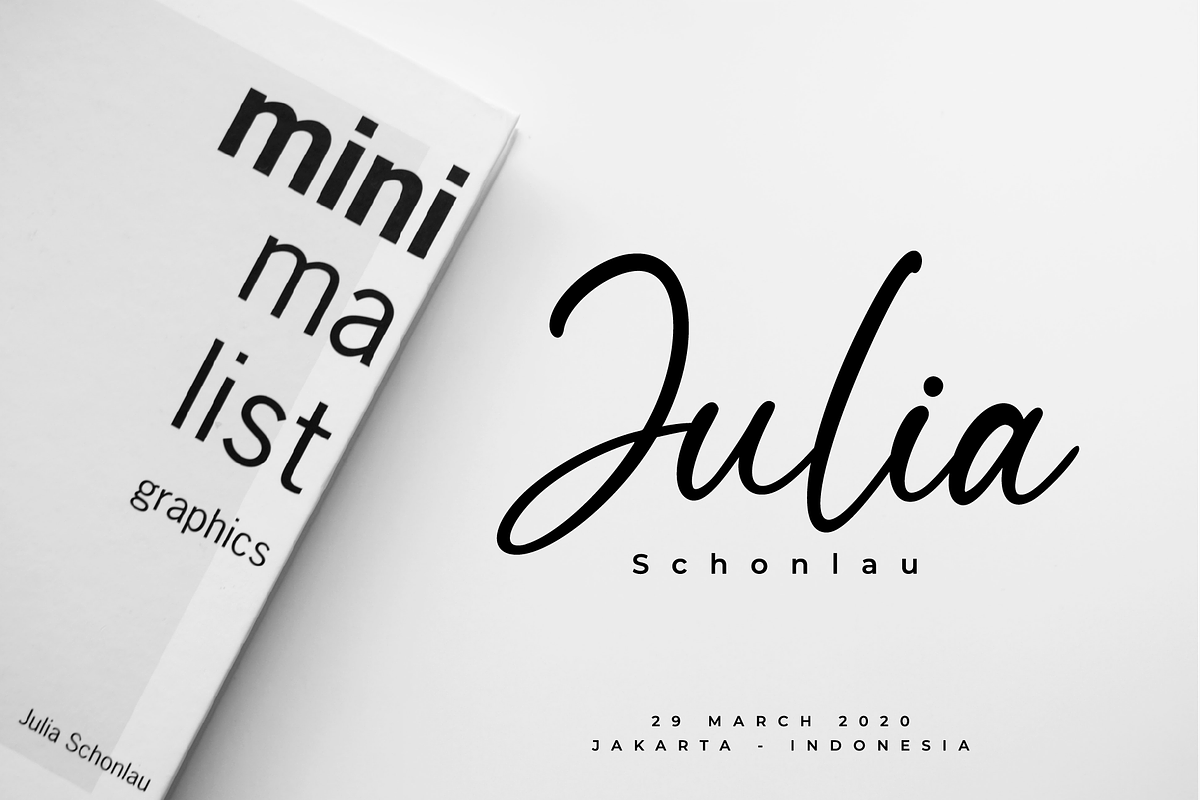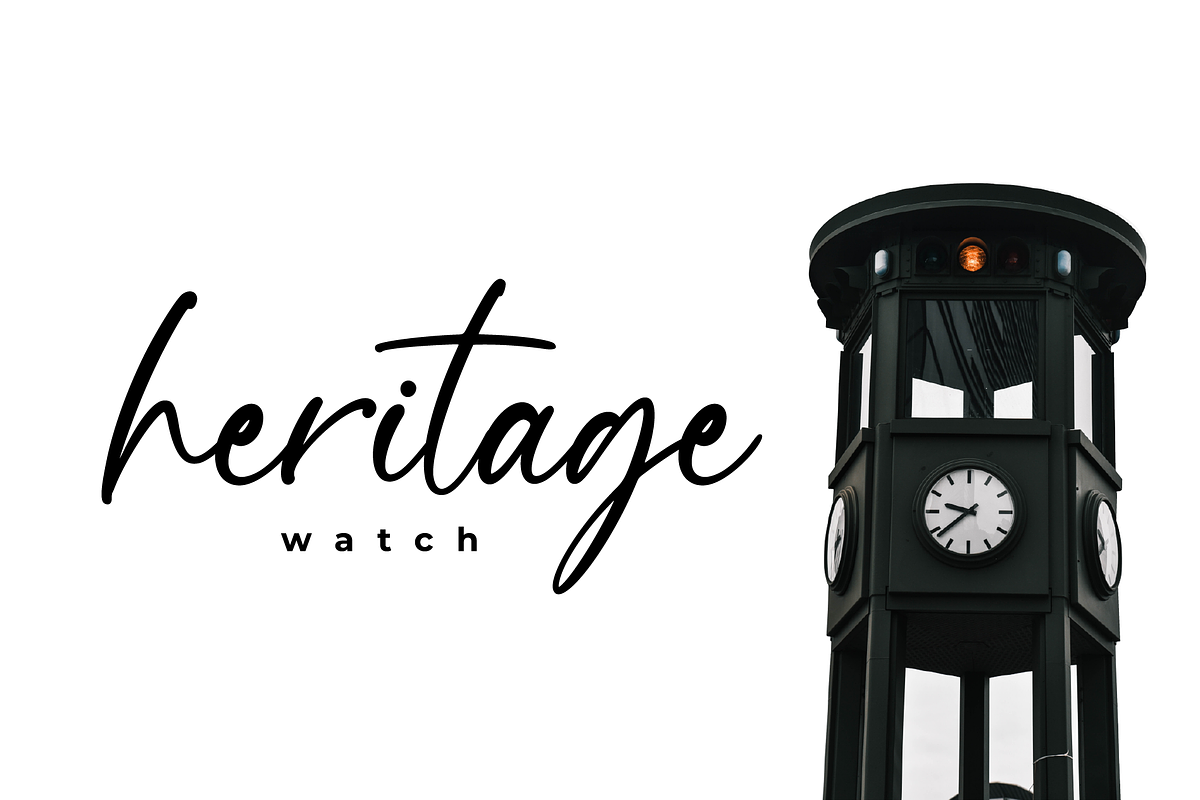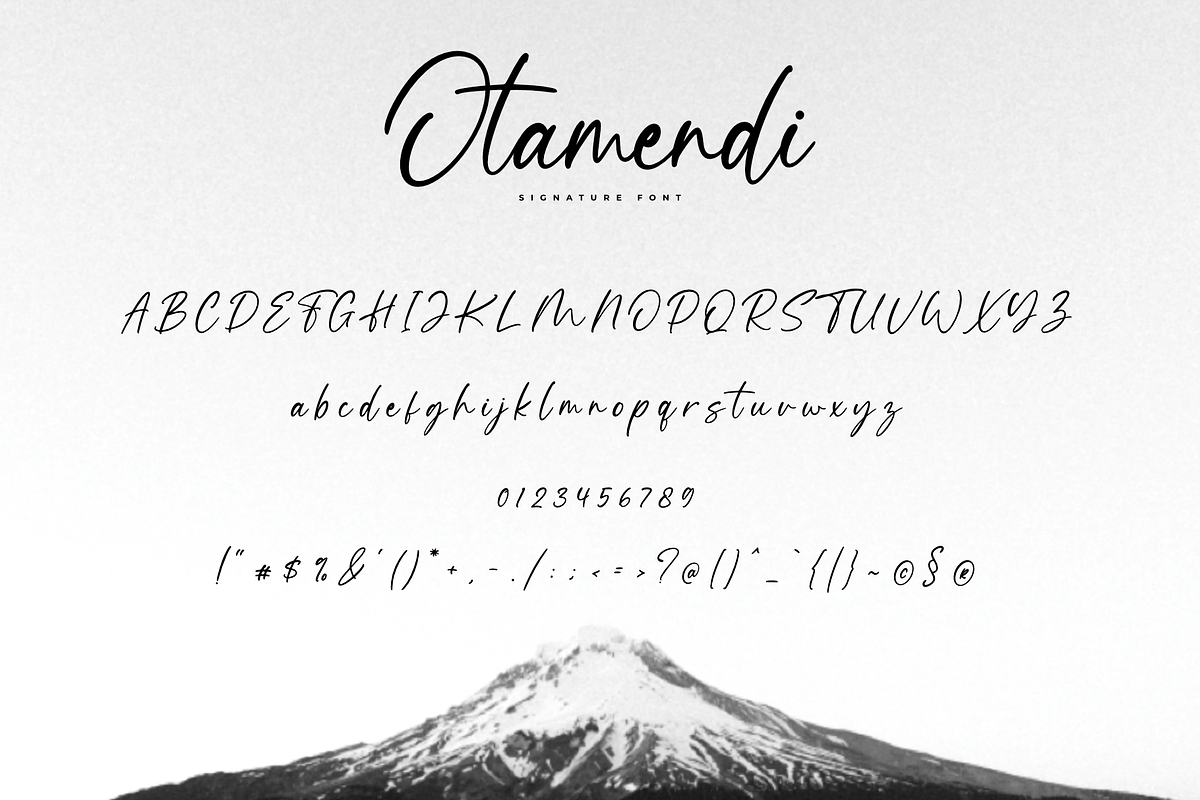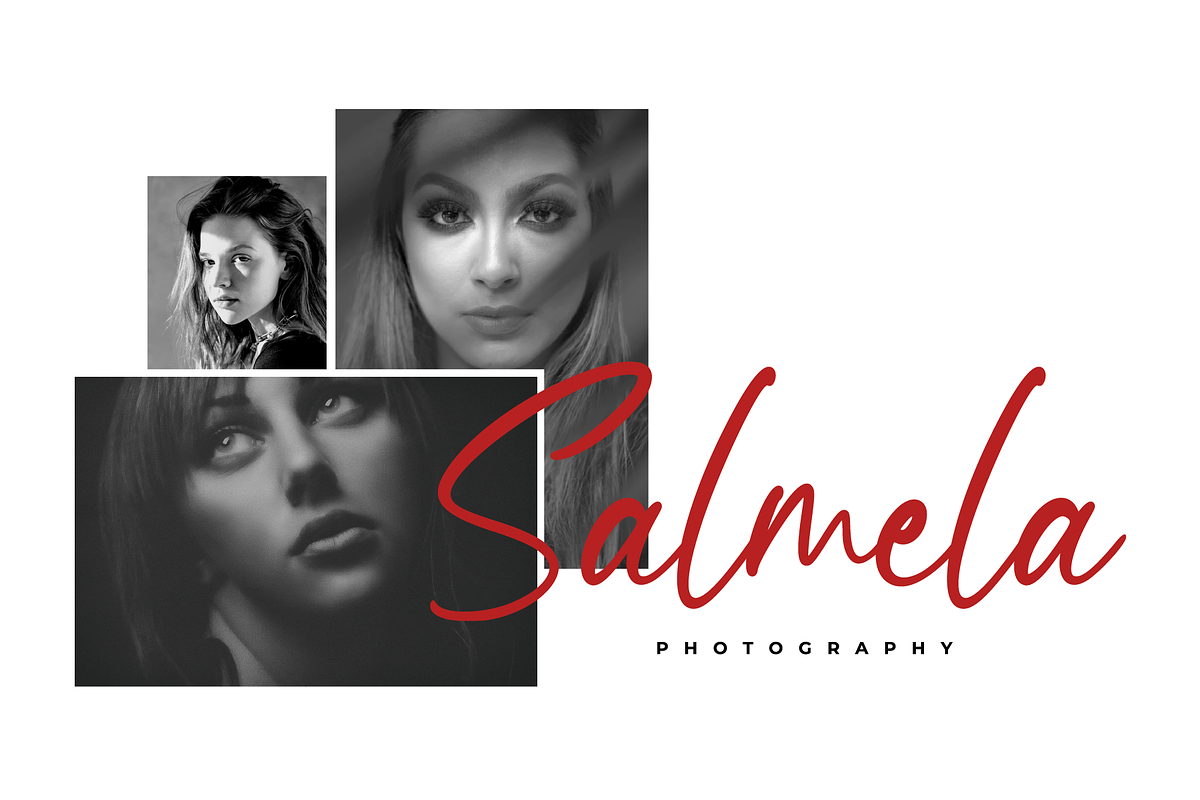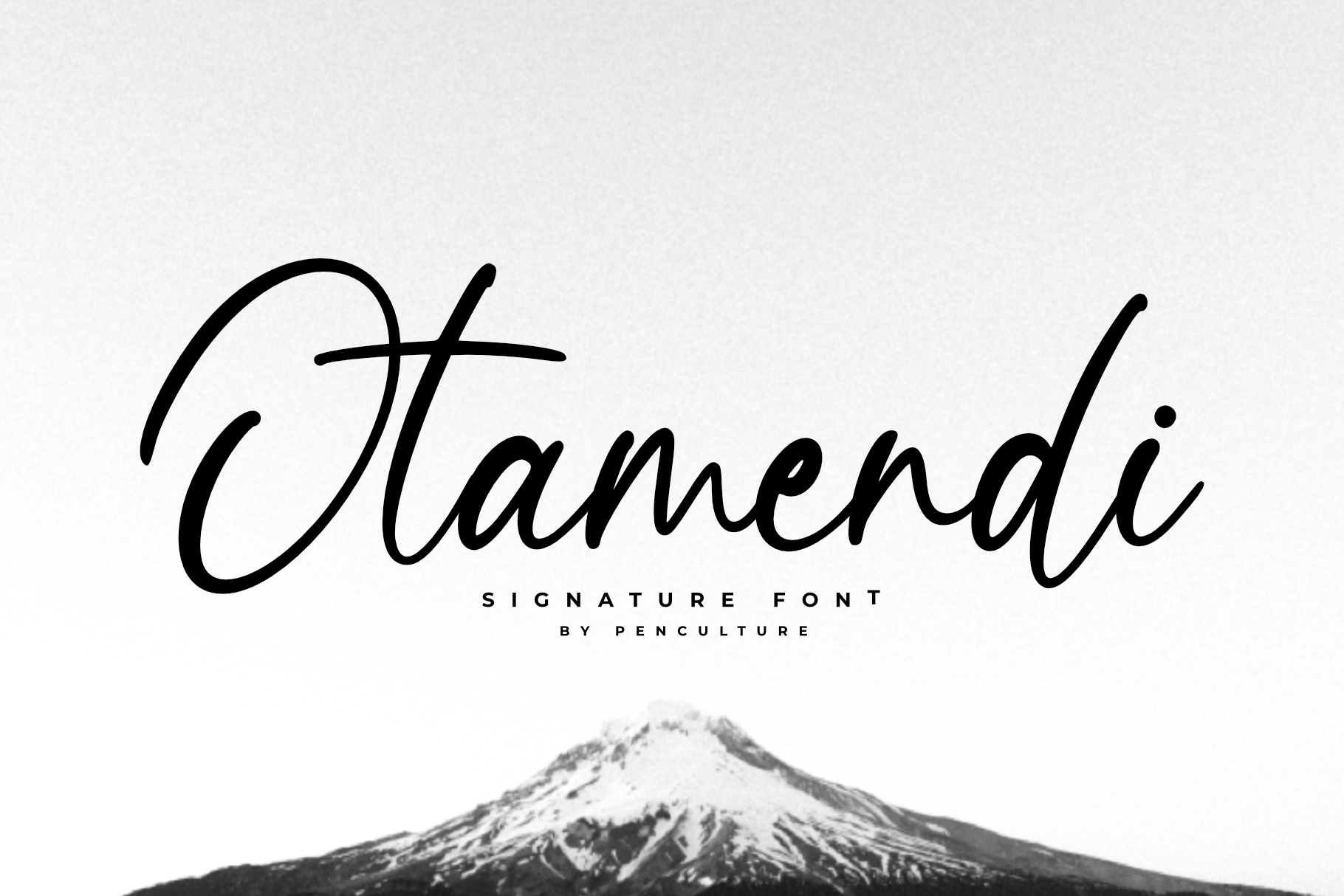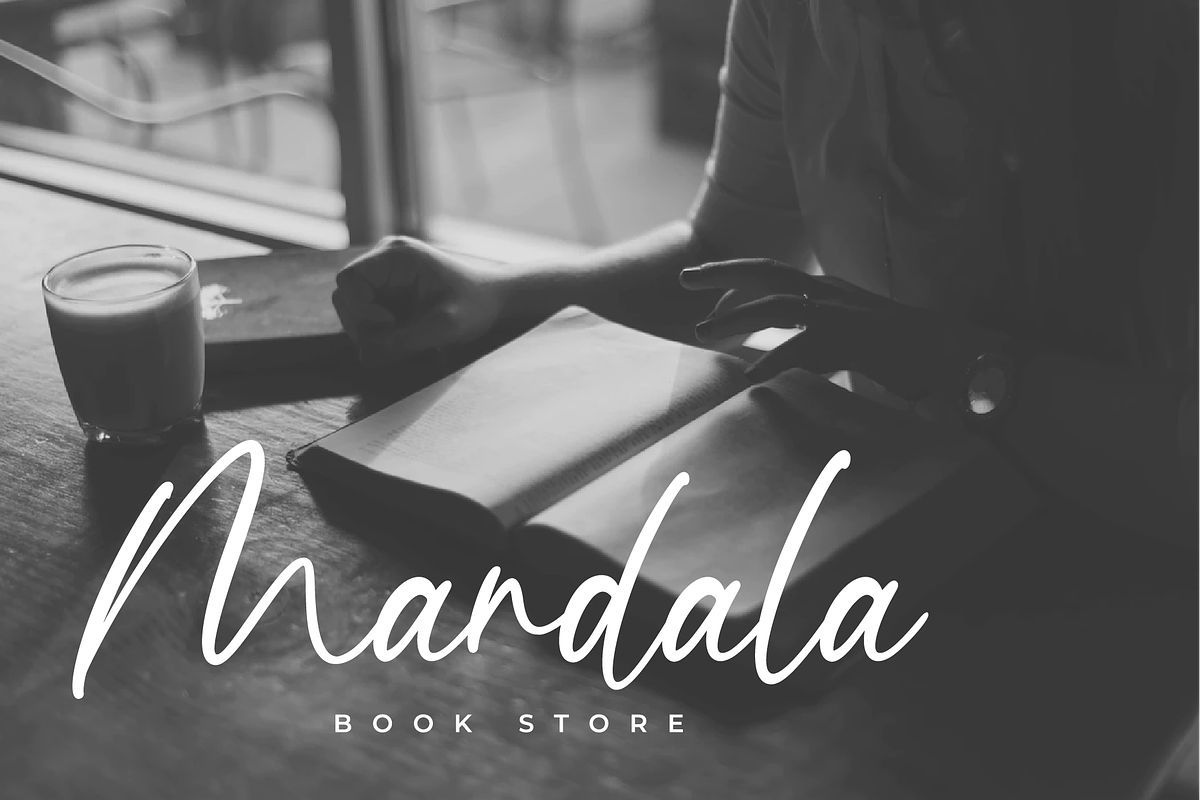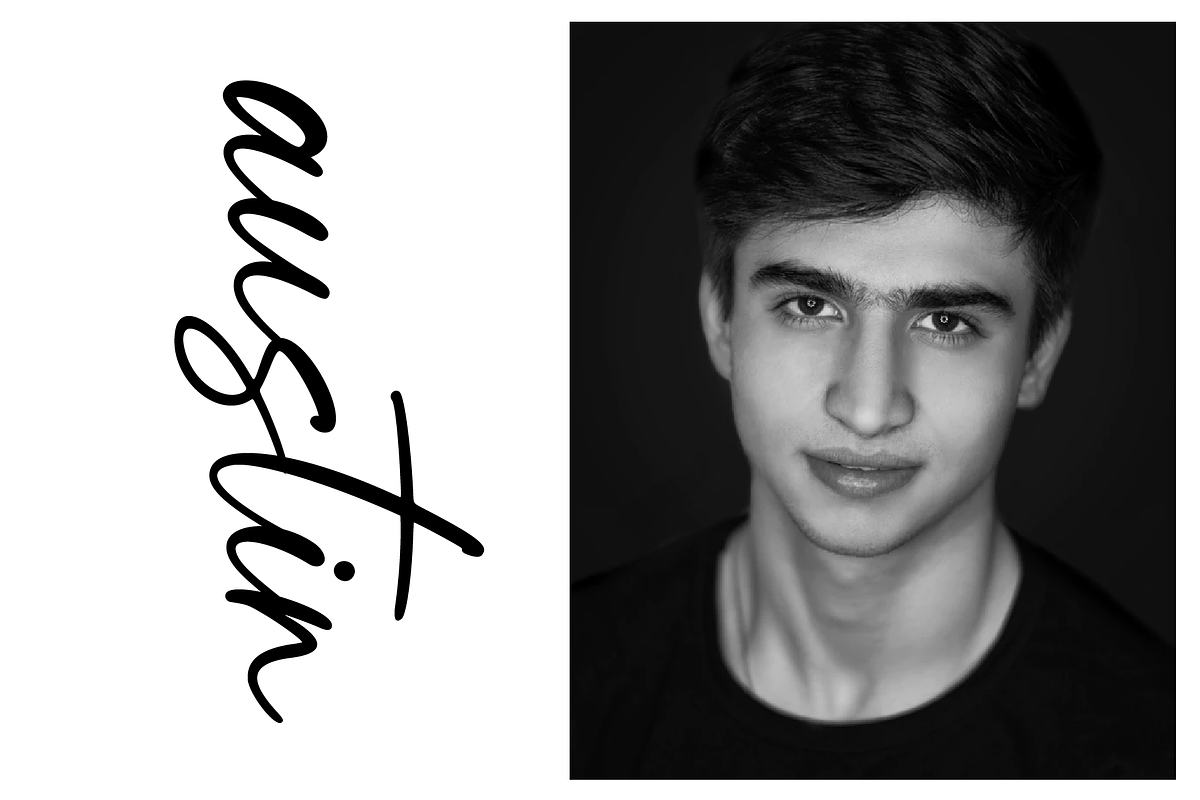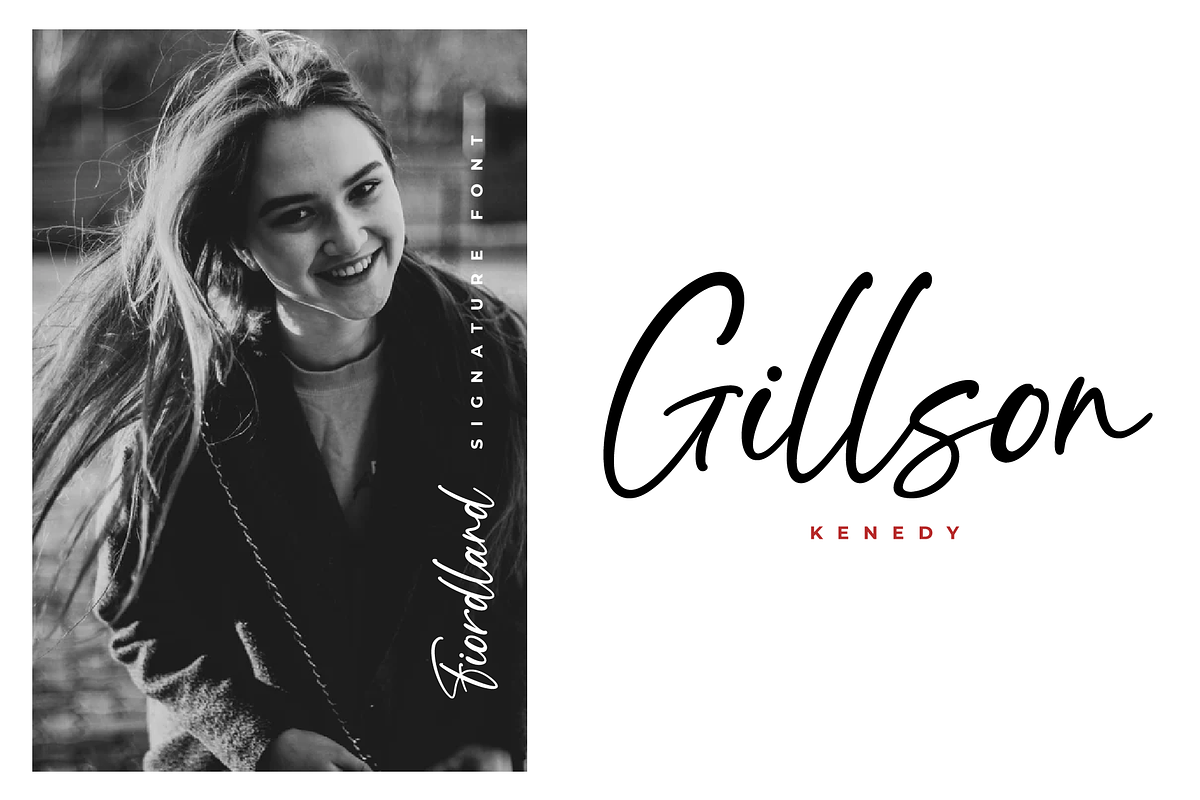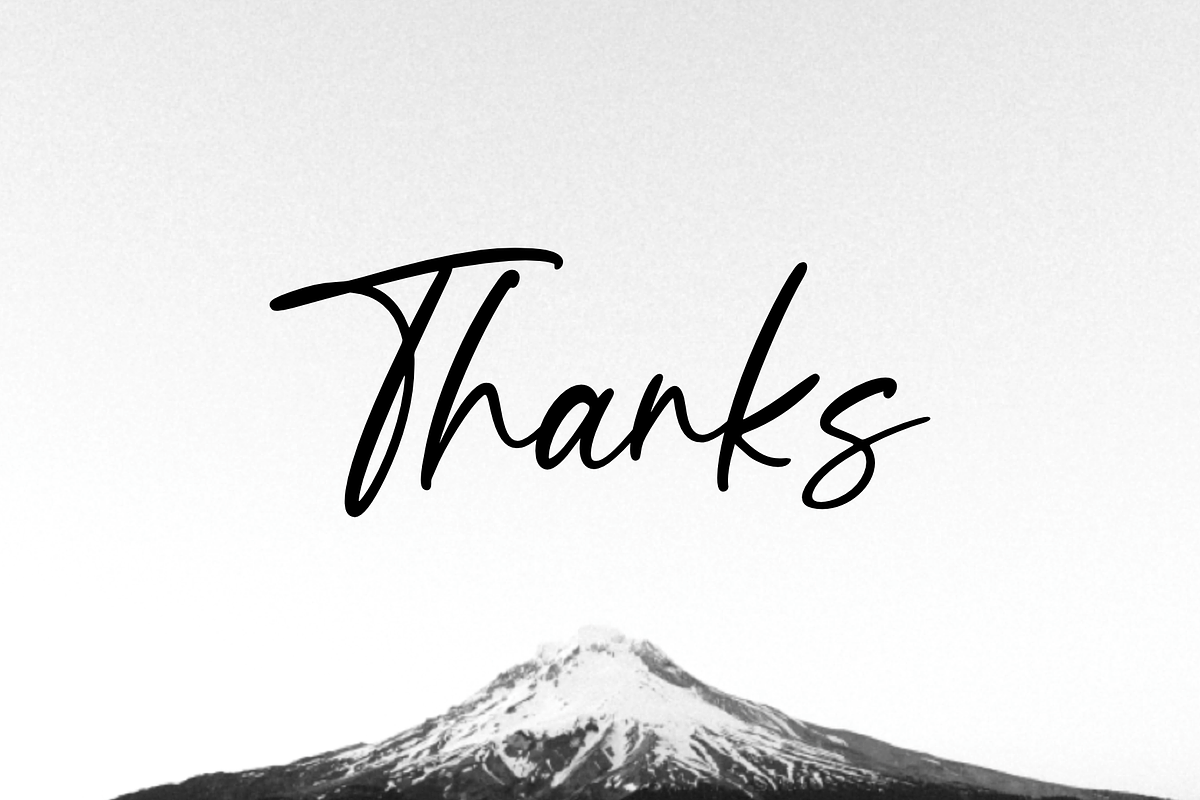
Otamendi Signature Font
let me introduce my newest font called Otamendi. Otamendi is beautiful signature font which has a beautiful and natural arch shape, this font is very suitable for various types, such as logos / brands, posters, magazines, Instagram templates, and many more.